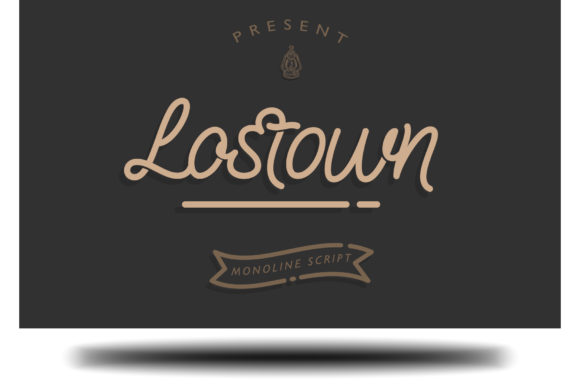
Indulge in the charm and sophistication of Lostown Font, a captivating script that will elevate your designs to new heights. Each character is meticulously crafted, boasting a harmonious balance that complements any aesthetic. With its varying baseline, smooth lines, and captivating glyphs, Lostown effortlessly evokes a sense of authenticity and allure.
Unleash your creativity with the stunning alternates, allowing you to personalize your designs and make a lasting impression. Whether you're crafting a signature logo, a heartfelt love letter, or an eye-catching social media post, Lostown Font empowers you to express yourself with unparalleled style and grace.
Elevate your designs with the timeless elegance of Lostown Font, a masterpiece that will transform your creations into works of art. Its versatility knows no bounds, seamlessly adapting to a myriad of projects, from delicate invitations to bold marketing materials. Embrace the beauty of handwritten artistry and let Lostown Font ignite your imagination today!